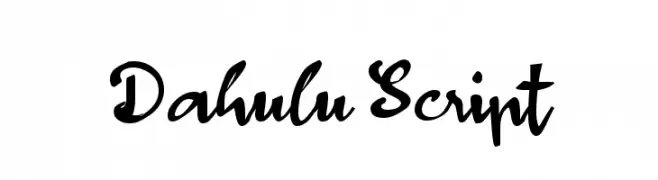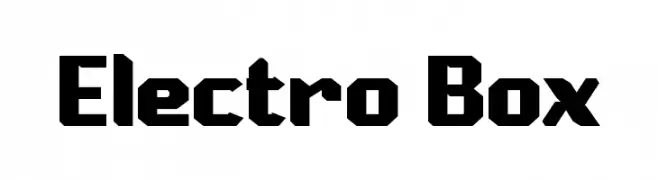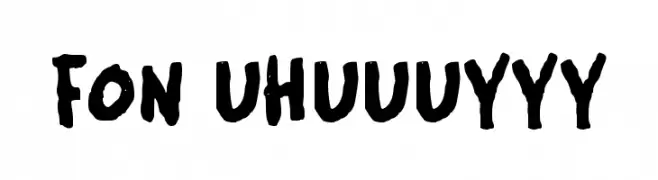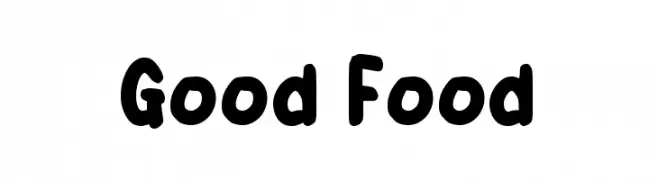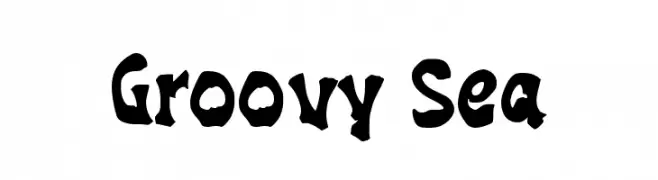
A bold, brush-style font with dynamic and energetic strokes.
A bold, distressed font with a rugged, hand-crafted appearance.
A bold, brush-style font with dynamic, slanted characters.
A bold, playful font with irregular, wavy strokes and a hand-drawn feel.
A bold, expressive script font with dynamic calligraphic flair.
A bold, geometric font with a futuristic and industrial design.
A playful, bold, hand-drawn font with rounded edges and a casual style.
A bold, textured font with an organic, rugged appearance.
A bold, hand-painted style font with a textured, brushstroke appearance.
A bold, hand-drawn font with an expressive and artistic style.